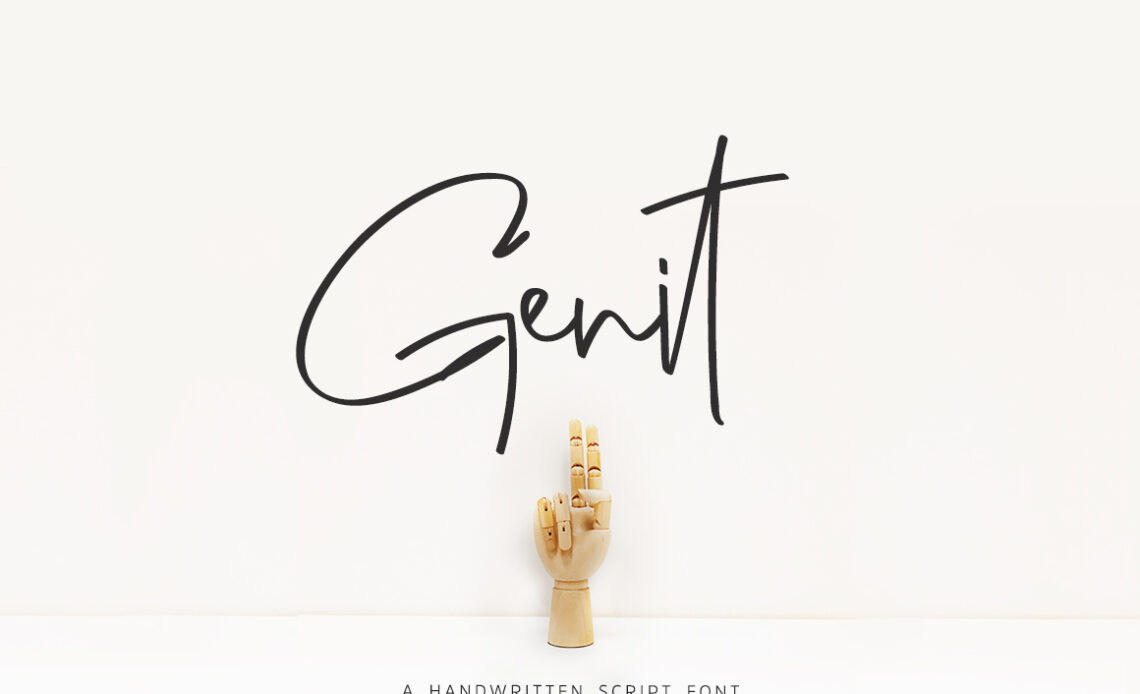
Welcome to the world of Genit Font, a captivating script font family that exudes class, elegance, and modernism. Inspired by the beauty of handwritten scripts, Genit was meticulously crafted to meet the demands of minimalist design projects.
**Minimalist Aesthetics:**
Genit's minimalist design philosophy is rooted in the belief that simplicity is the ultimate form of sophistication. Its clean lines, flowing curves, and delicate strokes create a visual harmony that enhances the impact of any design. Whether you're working on branding, logos, invitations, or social media graphics, Genit's minimalist aesthetic ensures your message shines through with clarity and poise.
**Unleash Your Creativity:**
With Genit at your fingertips, unleash your creativity and elevate your designs to new heights. Its versatility makes it suitable for a wide range of projects, from elegant wedding invitations to eye-catching social media posts. Genit's adaptability allows you to explore different styles and themes, effortlessly transforming your ideas into stunning visuals.
**Professional Elegance:**
Inspired by the works of Leonardo da Vinci, Genit embodies the essence of professional elegance. Its graceful strokes and refined curves evoke a sense of sophistication that is ideal for business applications. From corporate presentations to professional reports, Genit adds a touch of class and credibility to your work.
**Handcrafted Charm:**
Genit's handwritten charm lends a personal touch to your designs. Its organic lines and subtle imperfections create a sense of authenticity that resonates with audiences. Whether you're crafting personal invitations, heartfelt letters, or intimate branding, Genit's handcrafted charm adds a layer of warmth and sincerity.
**Experience the Genit Difference:**
Genit is more than just a font; it's an artistic expression that brings your creative vision to life. Its versatility, elegance, and minimalist aesthetics make it the perfect choice for designers, marketers, and creative professionals seeking a font that reflects their passion for excellence.